#1 Alsgina Cheska Font
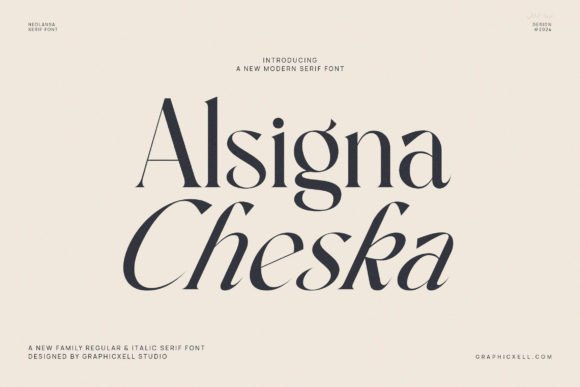
Discover Alsgina Cheska, an elegant modern serif font inspired by rich Italian typography, yet infused with bold detail and a unique reversed diagonal axis that radiates bravery and style. Its high contrast and distinctive features make it incredibly expressive and perfect for everything from impactful logos to engaging modern editorials.
#2 Glimolle Font
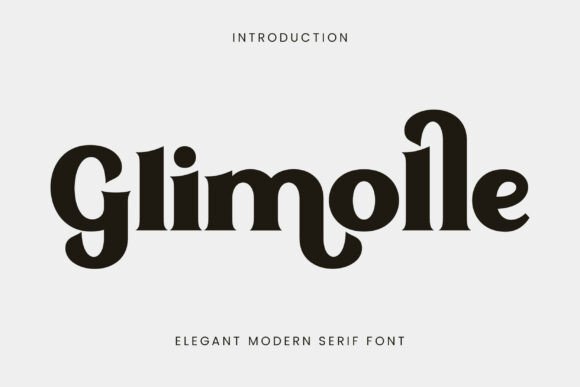
Glimolle is an elegant modern serif typeface designed to infuse sophistication and charm into contemporary design. With graceful curves and stylish letterforms, it creates a refined visual presence that's highly readable, perfect for branding, editorial layouts, and premium packaging seeking a blend of timeless elegance and modern style.
#3 Prestoria Font
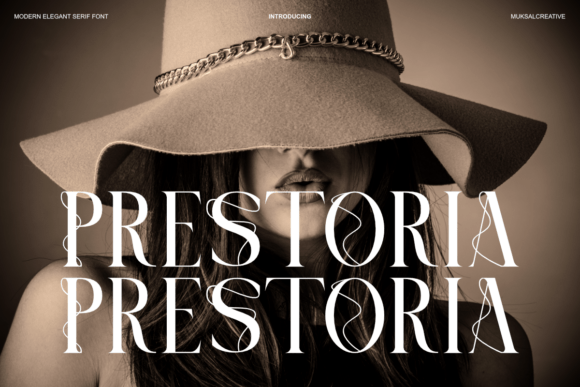
Prestoria is a modern elegant serif typeface that beautifully blends timeless sophistication with contemporary design. With refined high-contrast strokes and graceful curves, it delivers a luxurious yet balanced appearance, perfect for high-end branding, editorial use, and any project demanding elegance and distinctive personality.
#4 City Hall History Font
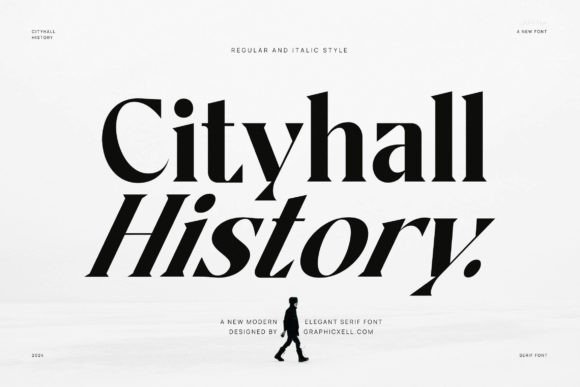
Inspired by the rich history of Italian type, Cityhall History is an elegant modern serif font that expresses bravery and enthusiasm through its bold details and unique reversed diagonal axis. With high contrast strokes and an expressive style, it's perfect for logos, fashion, and editorials, ensuring captivating engagement.
#5 Rinjani Sans Font
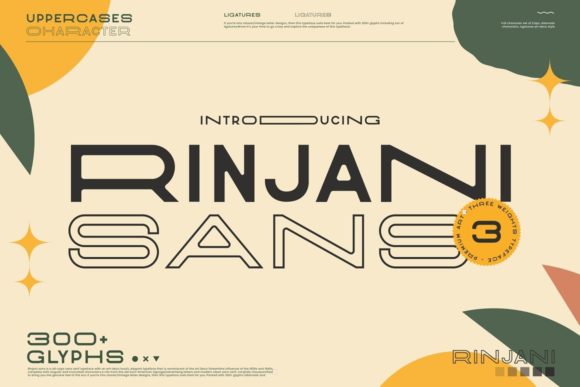
Rinjani Sans offers a striking all-caps design, blending contemporary style with a unique vintage-futuristic art deco touch inspired by classic Euro-American signage. Carefully crafted for genuine impact, this font ensures all its glyphs and swashes are easily accessible to elevate your designs.
#6 Crown Family Font
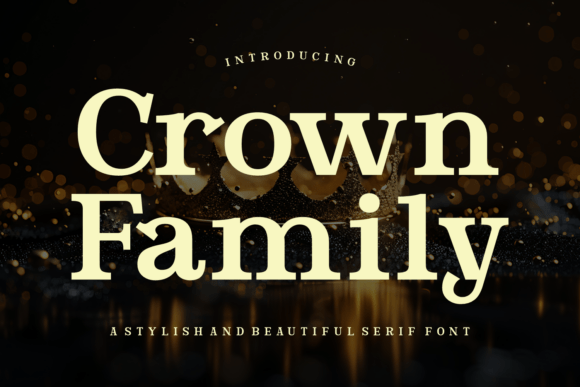
Crown Family is a regal serif font that effortlessly blends classic elegance with a modern edge, perfect for infusing luxury and sophistication into any project. Elevate your branding, invitations, or editorial layouts with its timeless prestige and graceful style.
#7 Gerardo Font
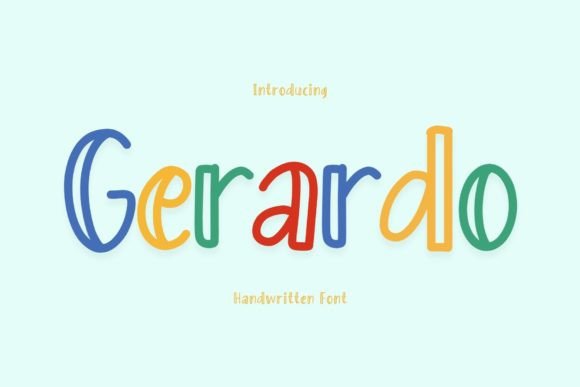
A practical, polished digital resource designed for easy use. It keeps the core value of this product while making the benefits clearer: Gerardo Font is a versatile and contemporary typeface that combines elements of both classic and modern design. With its clean lines and balanced proportions, this font exudes a sense of professionalism and sophistication. Perfect for branding, editorial desig.
#8 Marseille Font
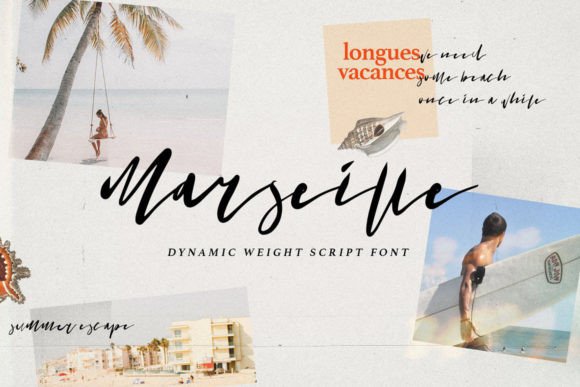
A practical, polished digital resource designed for easy use. It keeps the core value of this product while making the benefits clearer: Marseille is a font that is made using a technical pen with a combination of very bold and thin strokes on each letter. Create a distinctive design by using this font, you can accomplish a unique design that some script fonts canβt accomplish. It works beautif.
#9 Kangu Font
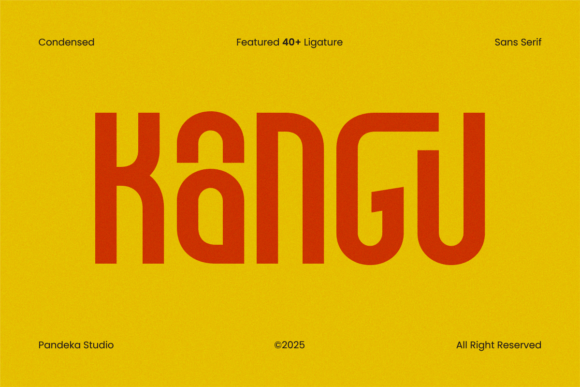
A practical, polished digital resource designed for easy use. It keeps the core value of this product while making the benefits clearer: Kangu is a bold, futuristic sans-serif font crafted for innovation-driven designs. With its sharp angles and dynamic style, Kangu perfectly fits tech branding, esports, automotive, and modern advertising. The font features uppercase, lowercase, numbers, punctu.
#10 Humion Font
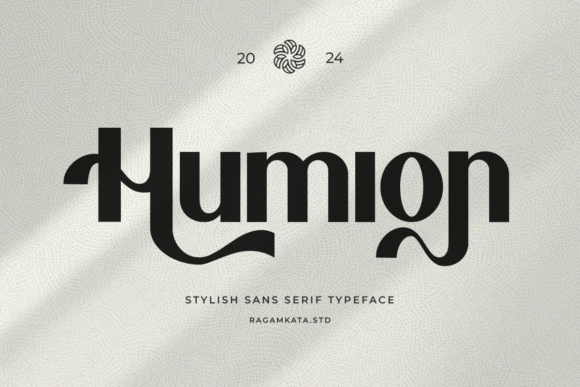
A practical, polished digital resource designed for easy use. It keeps the core value of this product while making the benefits clearer: Humion comes in a modern style featuring Alternates with swash making it easy to adapt to your design. An elegant typeface, Humion is perfect for corporate identities, websites, publications, titles, books, magazines, business cards, logos, product labels, pac.
#15 Avelina Font
Meet Avelina Script, the gorgeous new font designed to infuse elegance and sophistication into all your creative projects. Its flowing style is perfect for branding, social media, product design, and advertising, making it a versatile must-have for your collection.